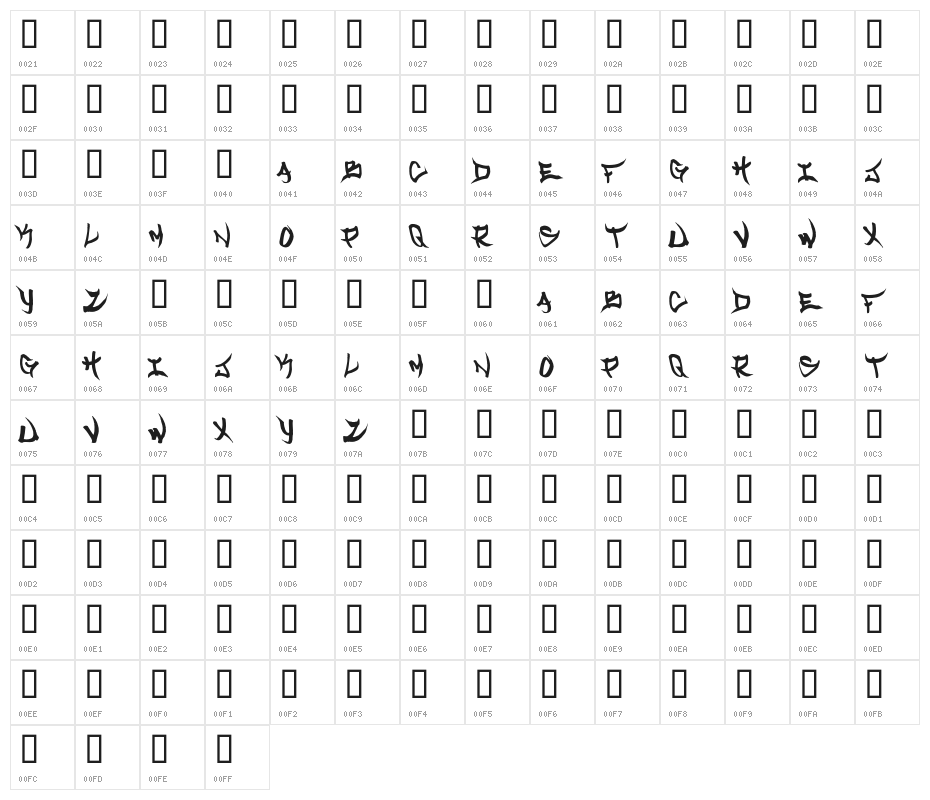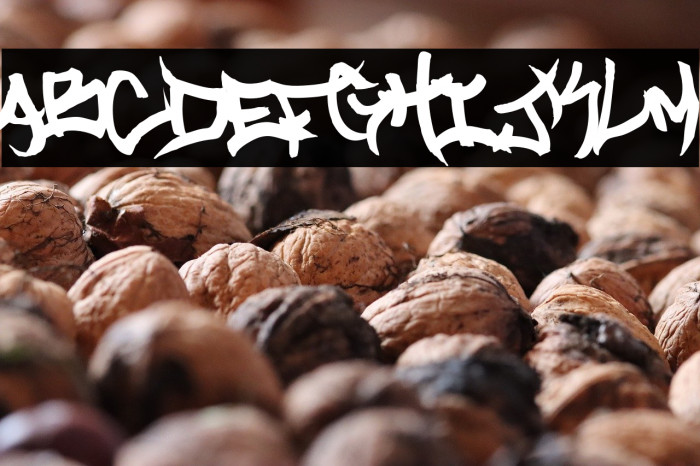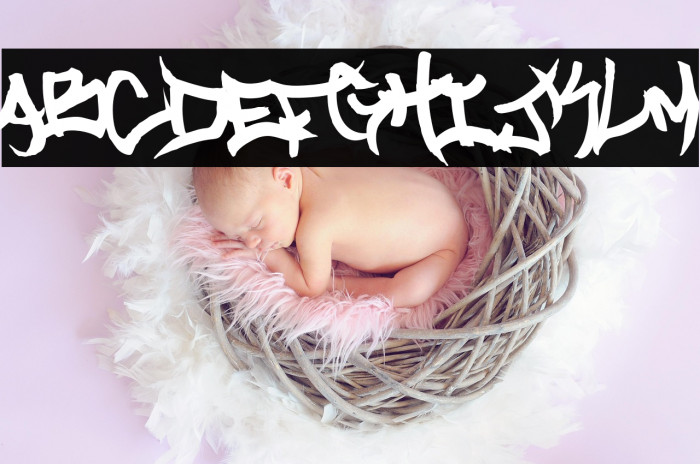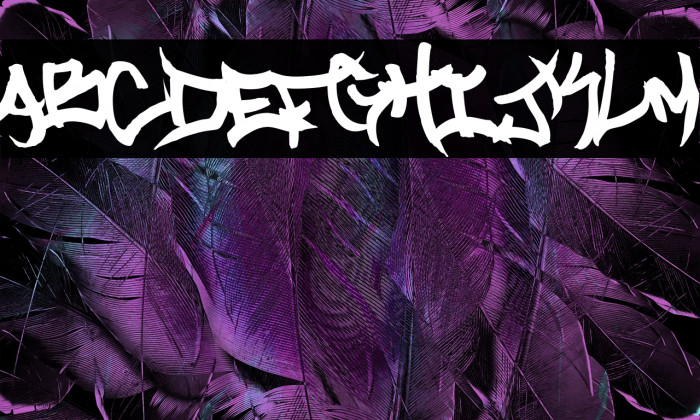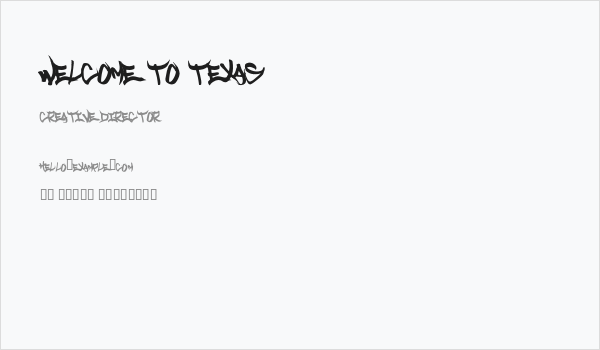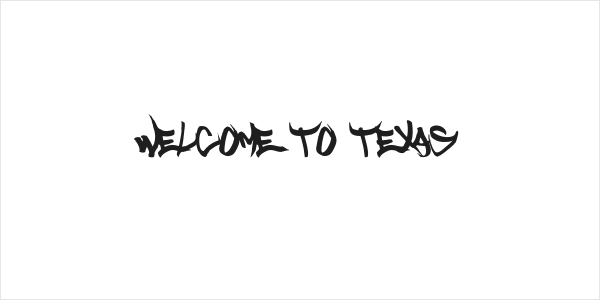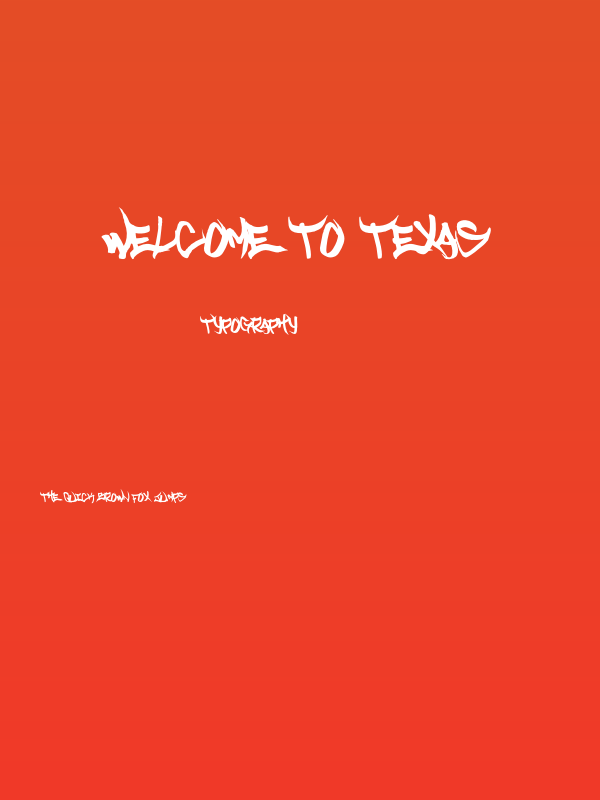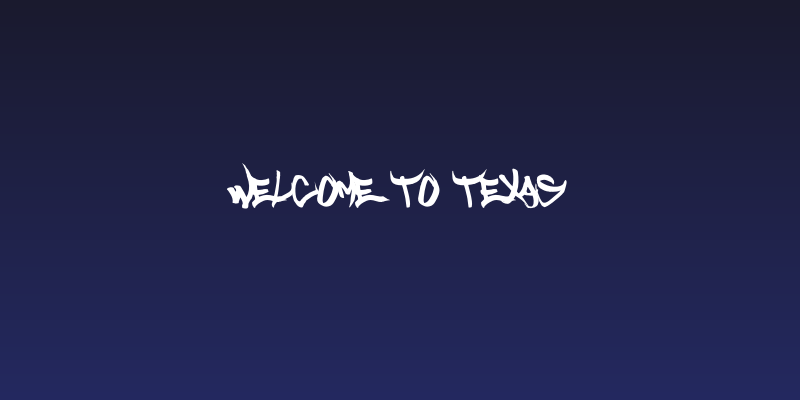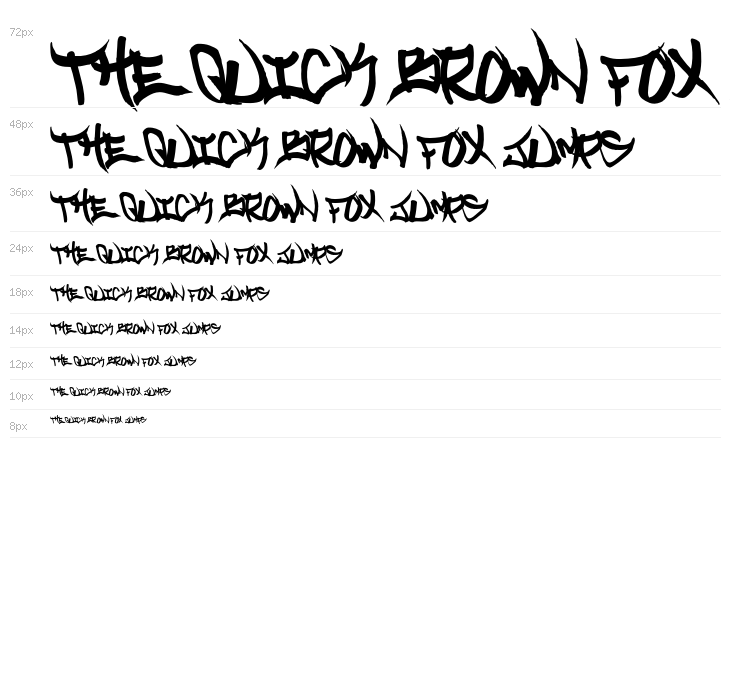
Welcome to Texas Font
Welcome to Texas Description
This font exhibits a bold, graffiti-inspired style with sharp, angular lines and dramatic strokes. The uppercase letters are highly stylized, featuring exaggerated curves and points that give a sense of movement and energy. The font's design is reminiscent of street art, with a rebellious and edgy aesthetic. The characters are closely spaced, enhancing the compact and impactful appearance. This font is ideal for projects that require a strong visual statement, such as urban-themed designs, music album covers, or event posters.
| Overall Style | Modern, Urban, Edgy |
| Proposed Projects | Ideal for urban-themed designs, music album covers, event posters, and streetwear branding. |